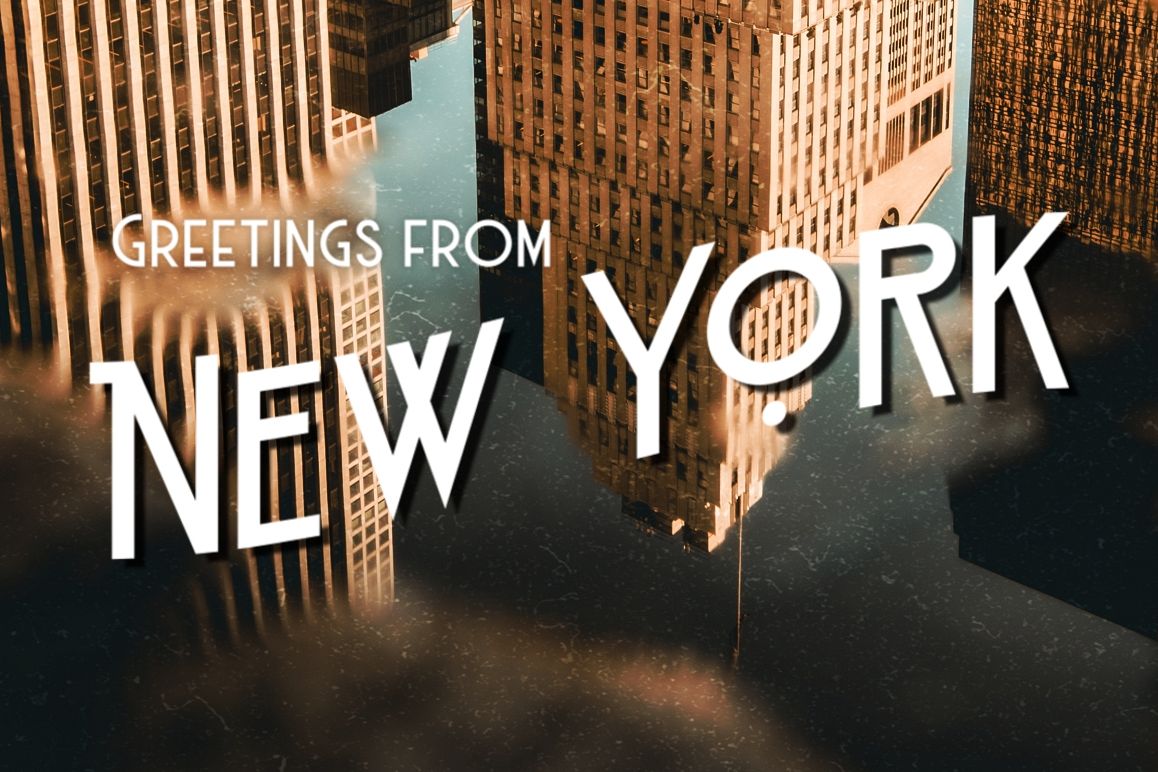
Haarlem Deco
Haarlem Deco Slanted
Haarlem Deco
Introducing Haarlem Deco, an
all-caps-semi-condensed-sans-serif (phew!) typeface with an art-deco
touch. A mix from the old European signage/advertising letters and
modern clean sans serif, carefully mouse-crafted to bring you the
genuine feel of the era.
If you're into classic/vintage letter designs, then this typeface suits
best for you. Packed with 300+ glyphs (alternate and multilingual
characters included), now it's your time to go crazy and explore the
uniqueness of this typeface! XD
• Upper and lowercase,
• Numeral and punctuations,
• Multilingual characters (ß included too, chill),
• Alternate characters (OpenType features),